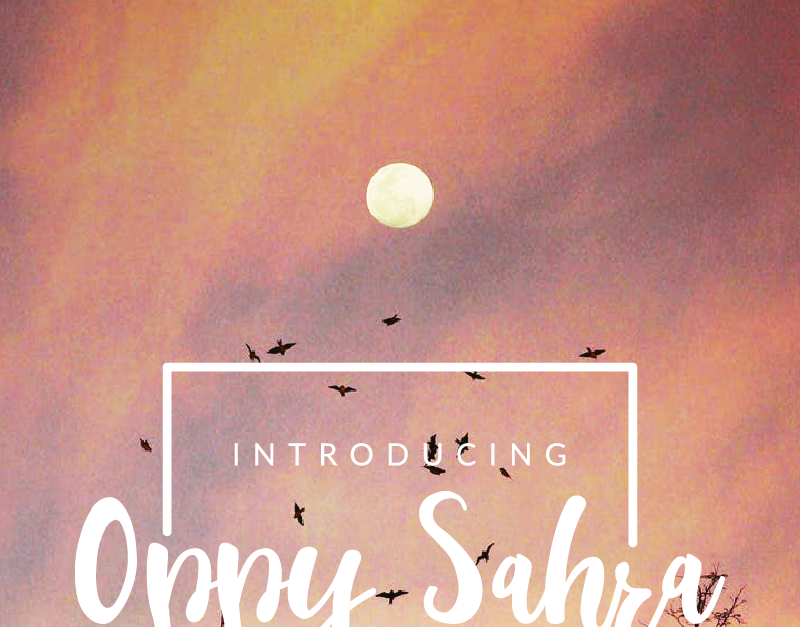
Oppy Sahra Font
It’s a Hand Lettering Font, with unique style, handwriting handwriten style. It’s not kinda signature, but it’s great font for logo, brands, poster, mural, flyer, invitation, signage, etc
This is not a modern script handwriting, it’s more like a vintage oldschool style, maybe like 90s 80s style font. It has a natural and stylish glyphs.